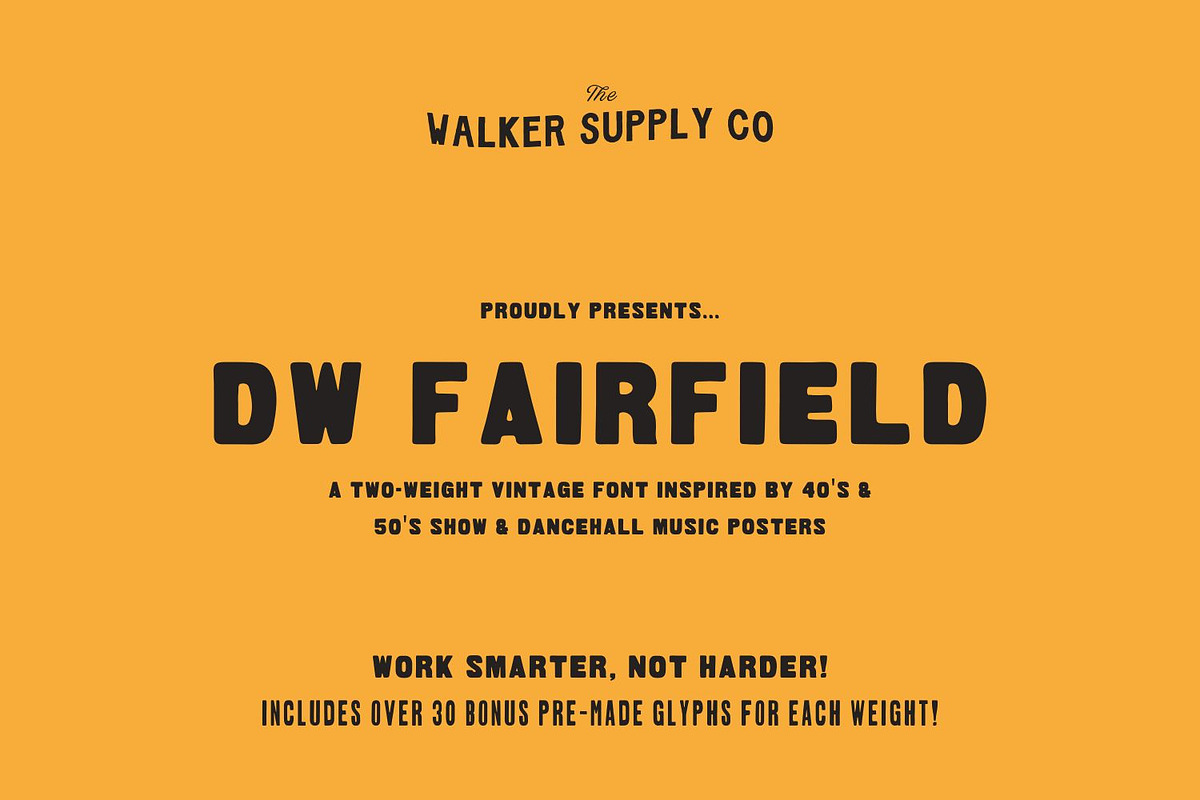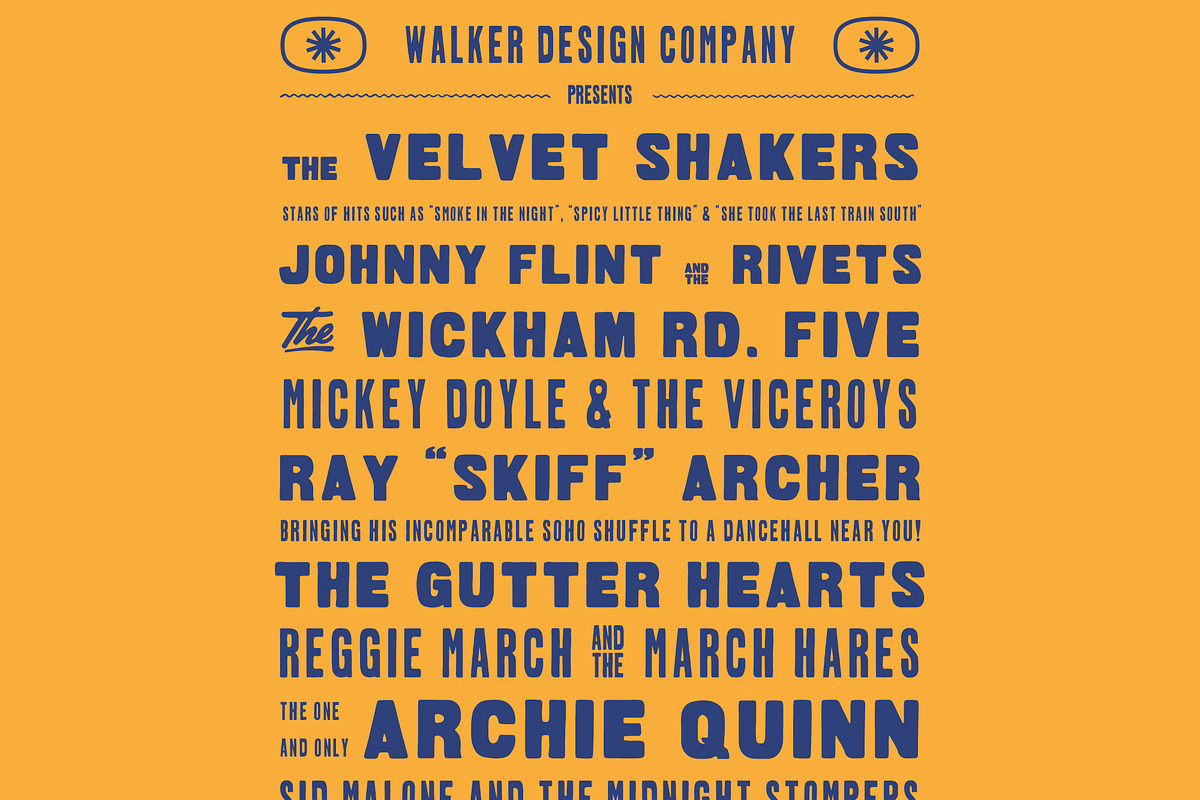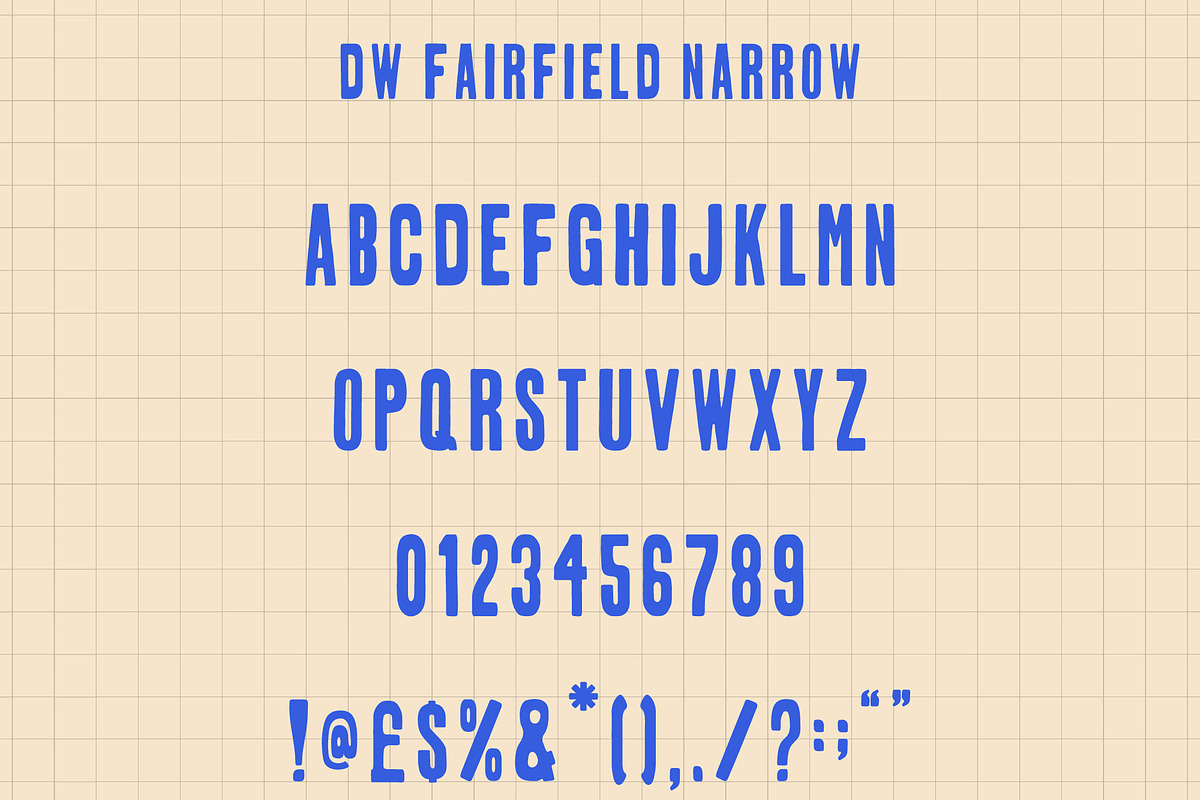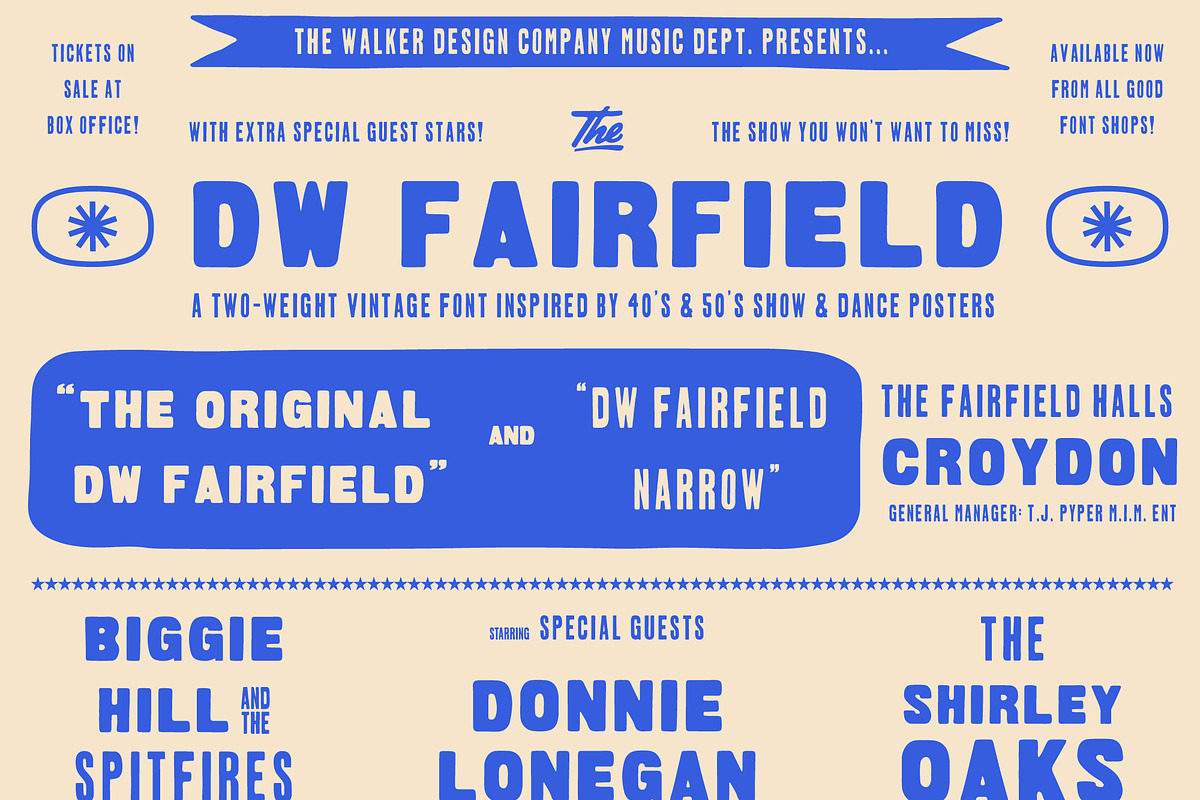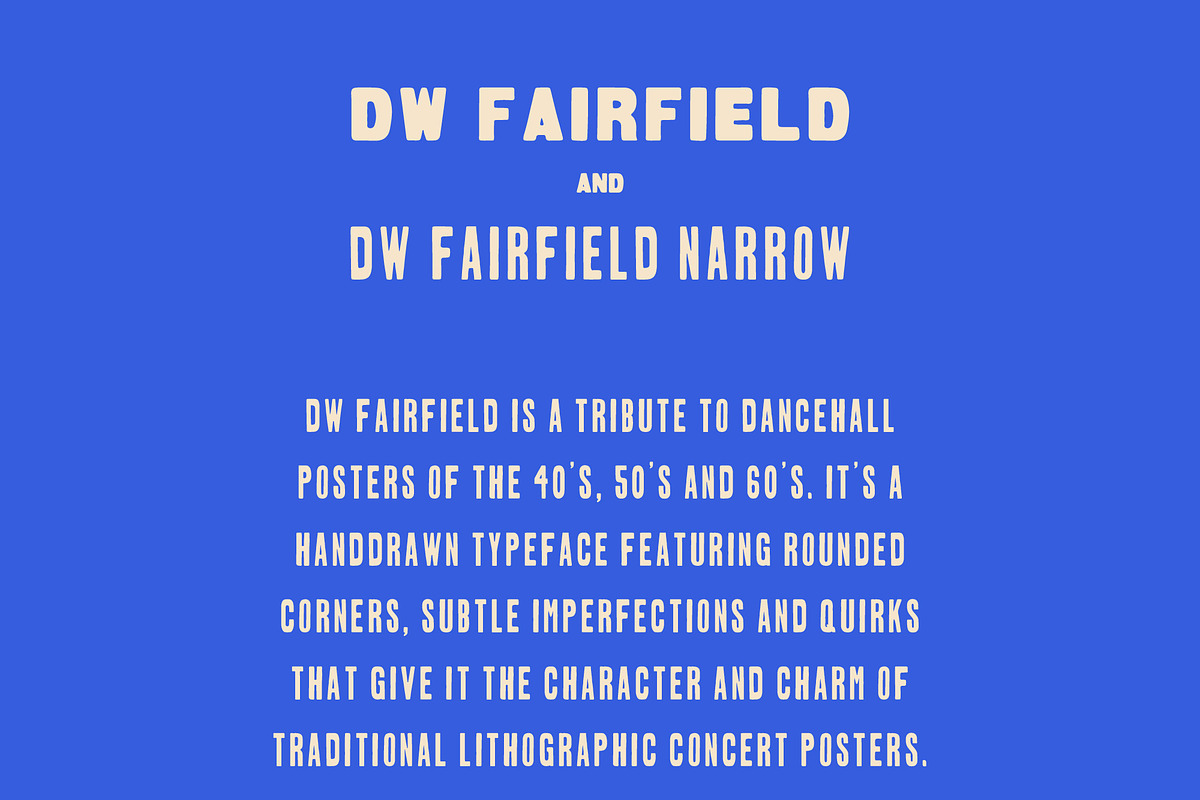
DW Fairfield Vintage Font Duo
Step back in time with DW Fairfield, a hand-drawn display typeface inspired by the electric energy of rock ‘n’ roll dancehall posters from the 1940s through the swinging ’60s.
Lovingly crafted with rounded corners, subtle imperfections, and charming quirks, DW Fairfield captures the spirit of traditional letterpress and lithographic concert posters - making it the perfect choice for designs that demand authenticity, character, and vintage charm.
✷ FEATURES
All-Caps Display Typeface
Two Weights - Regular & Narrow
Over 30 BONUS pre-made glyphs for EACH WEIGHT.
Hand-drawn with authentic charm and character
Rounded edges and subtle misalignments for a vintage press feel
Perfect for posters, record sleeves, event flyers, packaging, branding, signage & more.
✷ INSPIRED BY… The bustling dancehalls, smoky jazz clubs, and juke joints of post-war Britain. DW Fairfield draws influence from litho-printed gig posters, hand-painted signage, and the golden age of rock ’n’ roll design.
The name of the font comes from The Fairfield Halls in Croydon, England, where I grew up, and where my Great Grandad, Thomas J. Pyper, was the first General Manager. He welcomed acts such as The Beatles, Bill Haley and the Comets and many more to the venue, and his name lives on with The Fairfield Halls today.
Whether you're creating something nostalgic or looking to add a human touch to your design, this font brings real character to the stage.
✷ PERFECT FOR…
Vintage-style branding
Retro music artwork
Posters & flyers
Coffee shops & cocktail menus
Barbershops, vinyl shops & lifestyle brands with a throwback twist